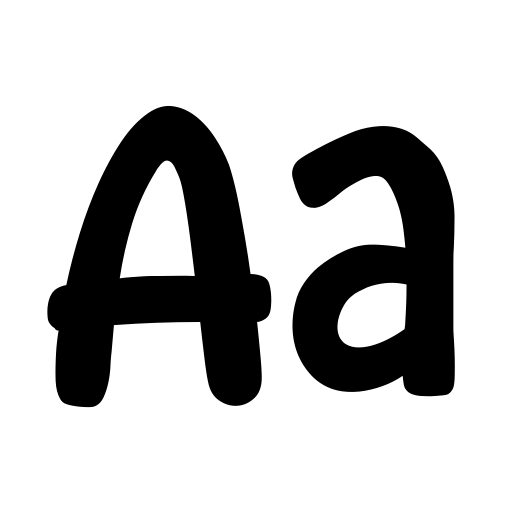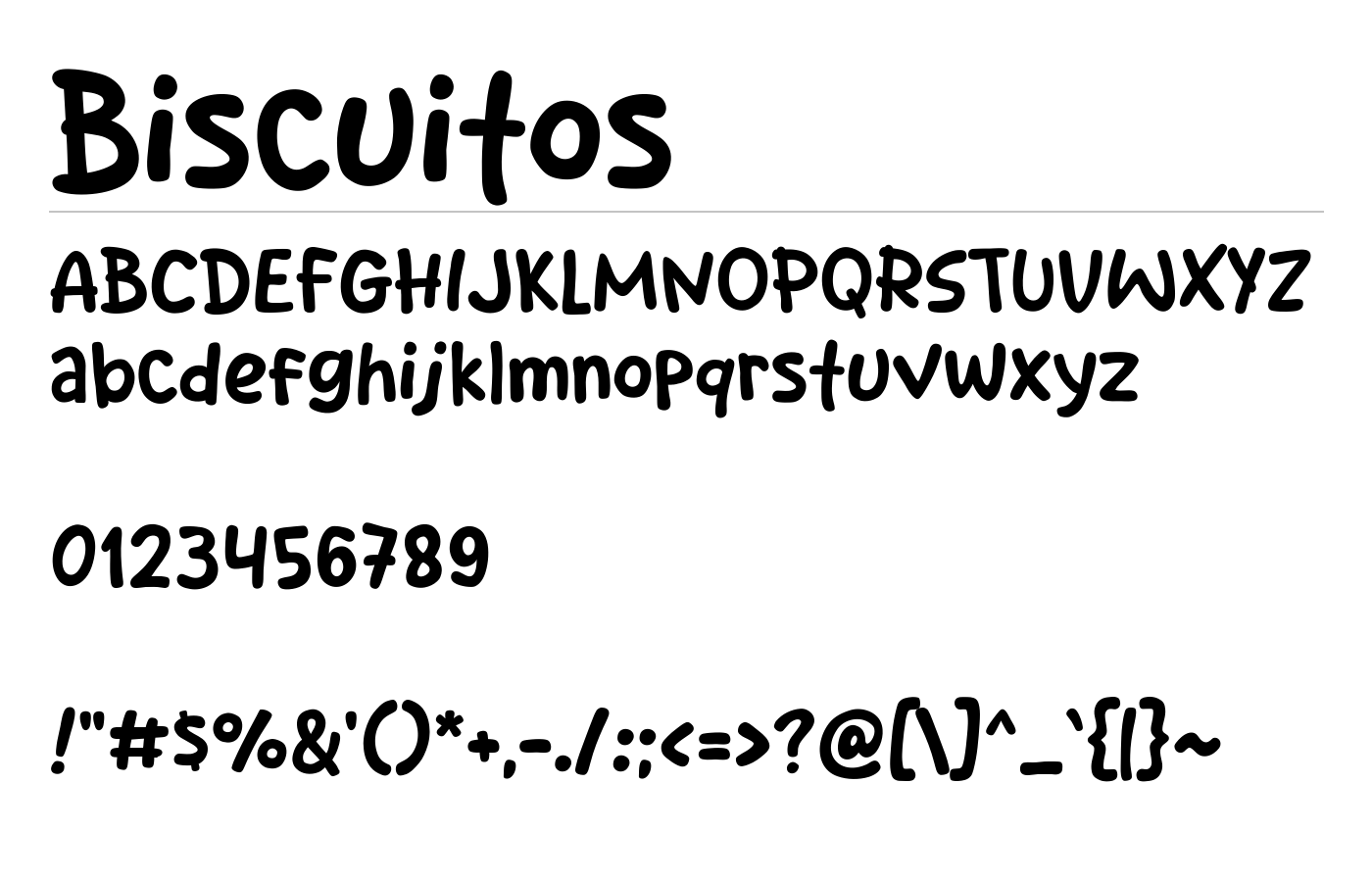
Biscuitos is a playful and casual sans serif font with a hand-drawn feel, featuring rounded, irregular shapes and a friendly personality. Its moderate weight and lively letterforms make it perfect for informal designs, children's books, or fun branding that seeks to convey warmth and approachability. This font works well in headlines, logos, and creative projects where a personal, cheerful touch is desired.
Biscuitos Font
About Biscuitos Font